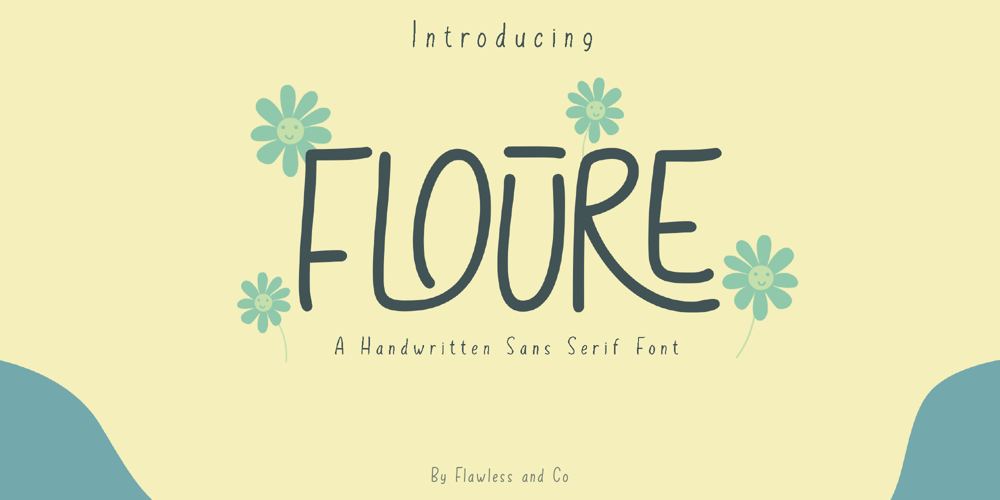
Floure Font Family was designed by Achmad Yani and published by Flawlessandco. Floure contains 1 styles and family package options. Introducing “Floure” – a delightful handwritten sans serif font that combines the charm of handwriting with the simplicity of a modern sans serif typeface. With its organic and friendly letterforms, Floure adds a touch of warmth and approachability to your designs. There’s some connected letters and some alternates that suitable for any graphic designs such as branding materials, t-shirt, print, business cards, logo, poster, t-shirt, photography, quotes .etcThis font support for some multilingual. Also contains uppercase A-Z and lowercase a-z, alternate character, numbers 0-9, and some punctuation.If you need help, just write me! Thanks so much for checking out my shop!